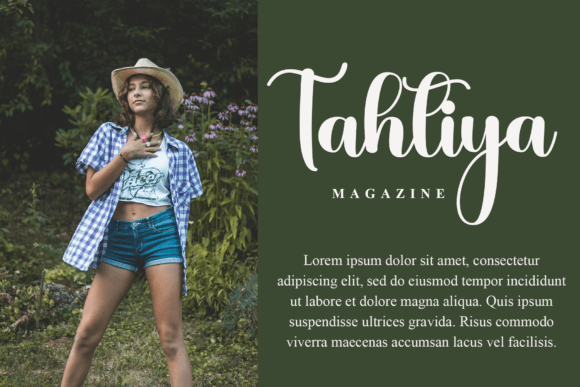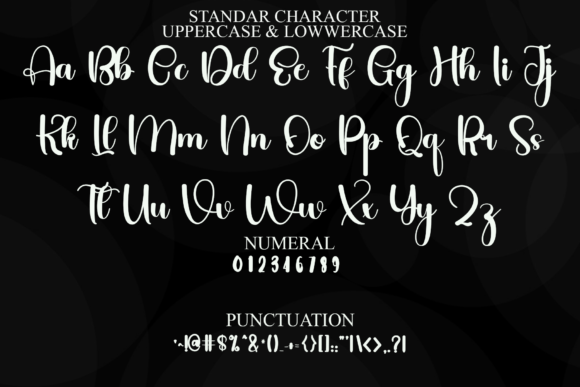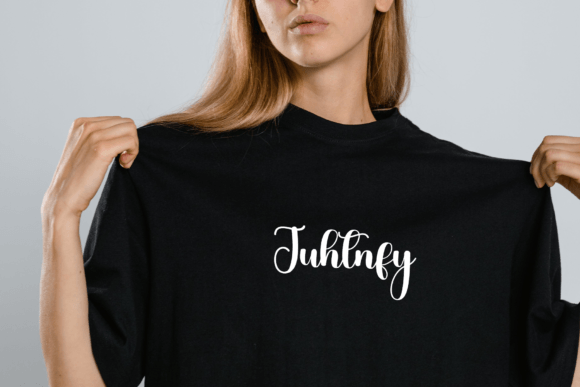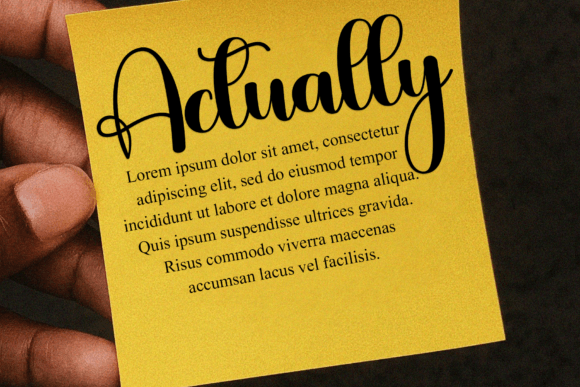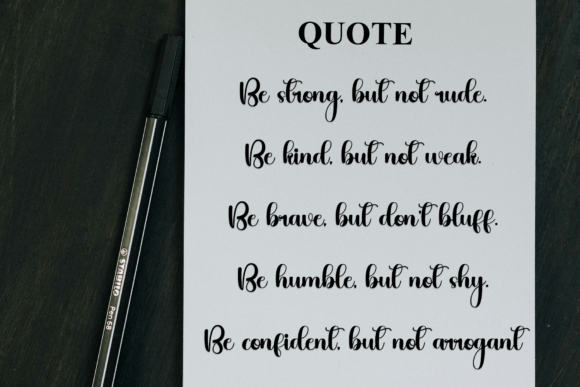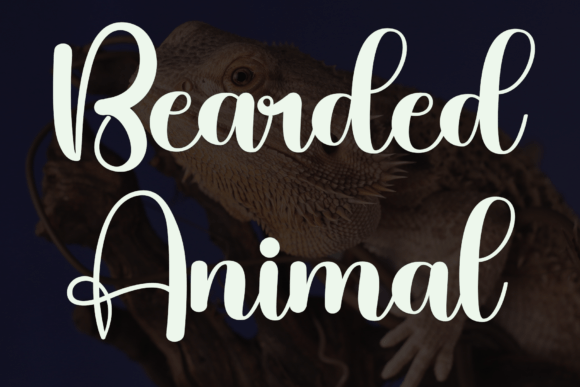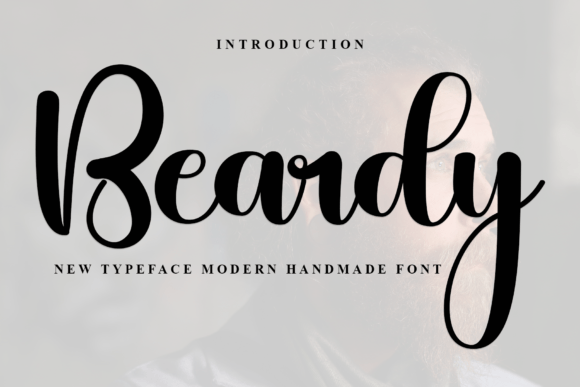
Introducing Beardy Font: Elevate Your Designs with Elegance and Sophistication
In the world of typography, a font can make or break a design. For designers and crafters looking to add a touch of class and modernity to their projects, Beardy Font is an exceptional choice. This beautiful, refined handwritten font is perfect for creating stunning logos, branding materials, invitations, stationery, wedding designs, social media posts, and more.
The Characteristics of Beardy Font
Beardy Font boasts a classy, elegant, and modern look that sets it apart from other fonts. Its handwritten style exudes a sense of sophistication and refinement, making it ideal for designs that require a personal touch. The font’s versatility allows it to be used across various platforms and applications, from digital media to print materials.
What Makes Beardy Font Special?
One of the standout features of Beardy Font is its PUA (Private Use Area) encoding. This means that users can easily access a wide range of glyphs and ligatures, allowing for greater creative freedom and flexibility. With PUA encoding, you can effortlessly incorporate swashes, flourishes, and other decorative elements into your designs, taking them to the next level.
Endless Design Possibilities with Beardy Font
The applications for Beardy Font are endless. Here are just a few ideas to get you started:
- Invitations and Stationery: Add a touch of elegance to your wedding invitations, greeting cards, and other correspondence.
- Wedding Designs: Make your special day even more memorable with beautifully designed wedding stationery, signs, and decor.
- Social Media Posts: Elevate your online presence with eye-catching social media graphics, quotes, and promotions.
- Crafting and DIY Projects: Use Beardy Font to add a personal touch to your scrapbooking, journaling, and other craft projects.
Tips for Getting the Most Out of Beardy Font
To maximize the potential of Beardy Font, here are a few tips to keep in mind:
- Experiment with Ligatures: Take advantage of the font’s PUA encoding to access unique ligatures and glyphs that can add a touch of whimsy to your designs.
- Play with Font Sizes: Beardy Font looks great in a variety of sizes, from large headings to smaller body text.
- Pair it with Other Fonts: Combine Beardy Font with other fonts to create interesting contrast and visual hierarchy in your designs.
Beardy Font is a versatile and elegant handwritten font that can elevate your designs to new heights. With its PUA encoding, classy style, and endless applications, it’s an excellent choice for designers and crafters looking to add a touch of sophistication to their projects. Whether you’re creating logos, branding materials, or social media posts, Beardy Font is sure to impress.